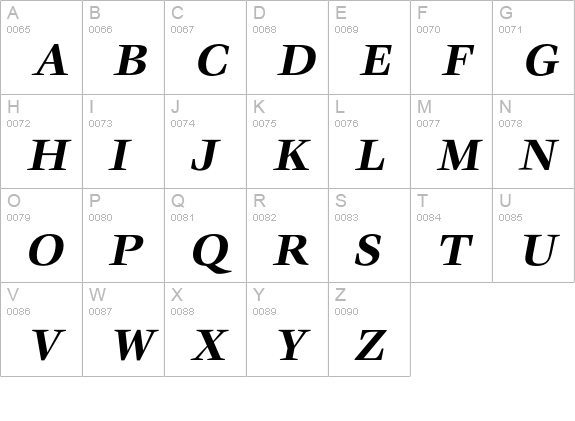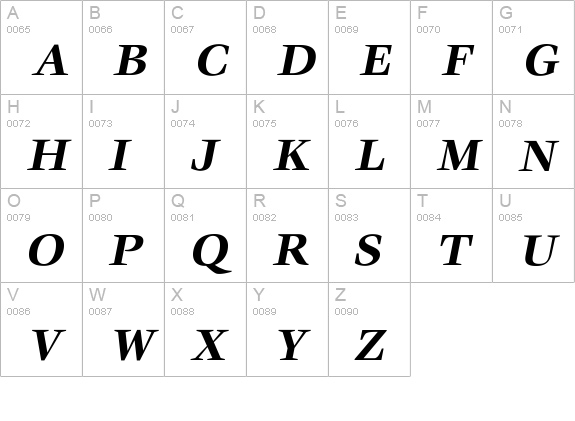
VeljovicBoldItalic Font Details
VeljovicBoldItalic is a stunningly elegant and versatile font that effortlessly combines boldness with a touch of italic serifs. This font, with its unique blend of strength and sophistication, is perfect for adding a touch of class to any design project. Whether you're creating eye-catching headlines, designing logos, or crafting elegant invitations, VeljovicBoldItalic is sure to make a lasting impression. What sets VeljovicBoldItalic apart is its ability to convey a sense of power and confidence while maintaining a sense of grace and refinement. The bold letterforms command attention, while the subtle italic serifs add a touch of elegance and style. This striking contrast creates a visual impact that is both captivating and memorable. One of the most remarkable aspects of VeljovicBoldItalic is that it is available for free download at FontsMarket.com. This means that designers and creatives can access this exceptional font without any cost, making it a valuable asset for those on a budget or looking to experiment with new typefaces. The versatility of VeljovicBoldItalic is another highlight. It pairs beautifully with both serif and sans-serif fonts, allowing for endless creative possibilities. Whether used as a standalone typeface or in combination with other fonts, VeljovicBoldItalic effortlessly elevates any design and adds a touch of sophistication. With its timeless appeal and exquisite design, VeljovicBoldItalic is a must-have font for designers and typographers alike. It is perfect for a wide range of applications, from branding and advertising to editorial and web design. Whether you're working on a high-end fashion campaign or a minimalist website, VeljovicBoldItalic is sure to bring your vision to life. In conclusion, VeljovicBoldItalic is a free font that exudes confidence, elegance, and versatility. Its bold letterforms and subtle italic serifs create a captivating visual impact, making it a standout choice for any design project. Download it now from FontsMarket.com and unlock the endless possibilities of this exceptional font.